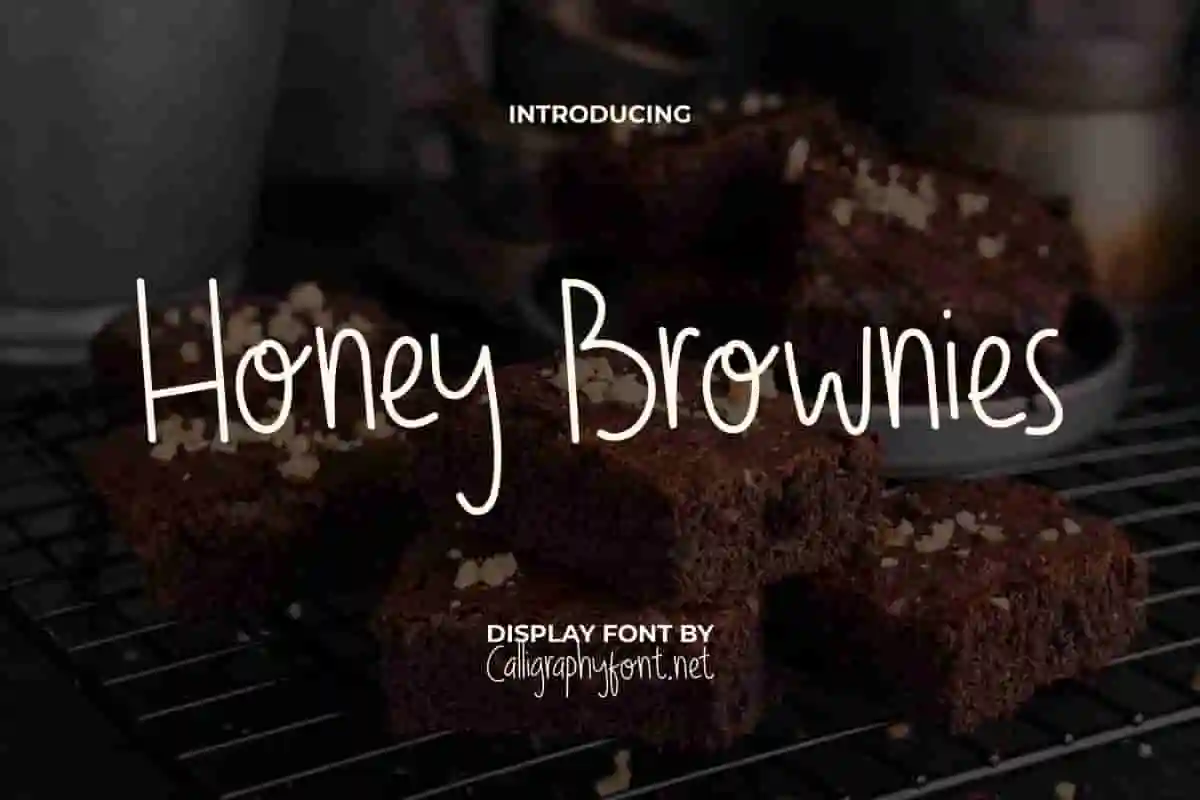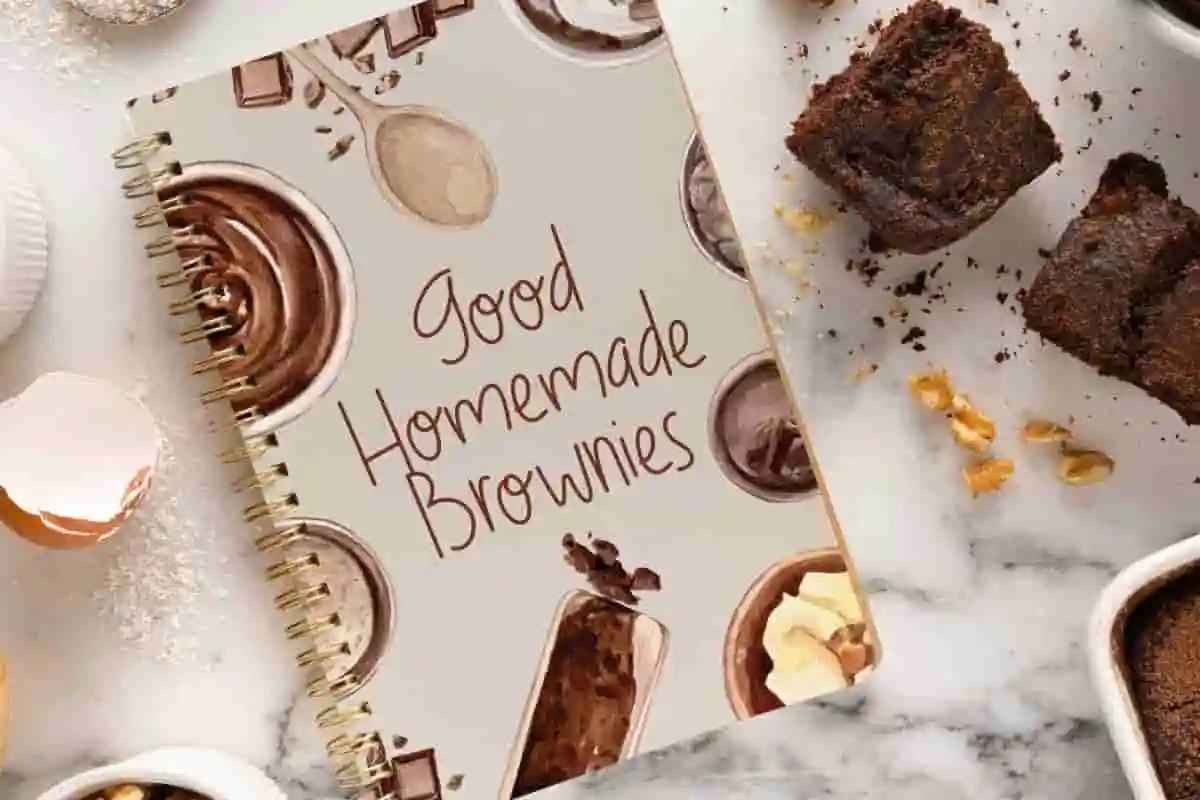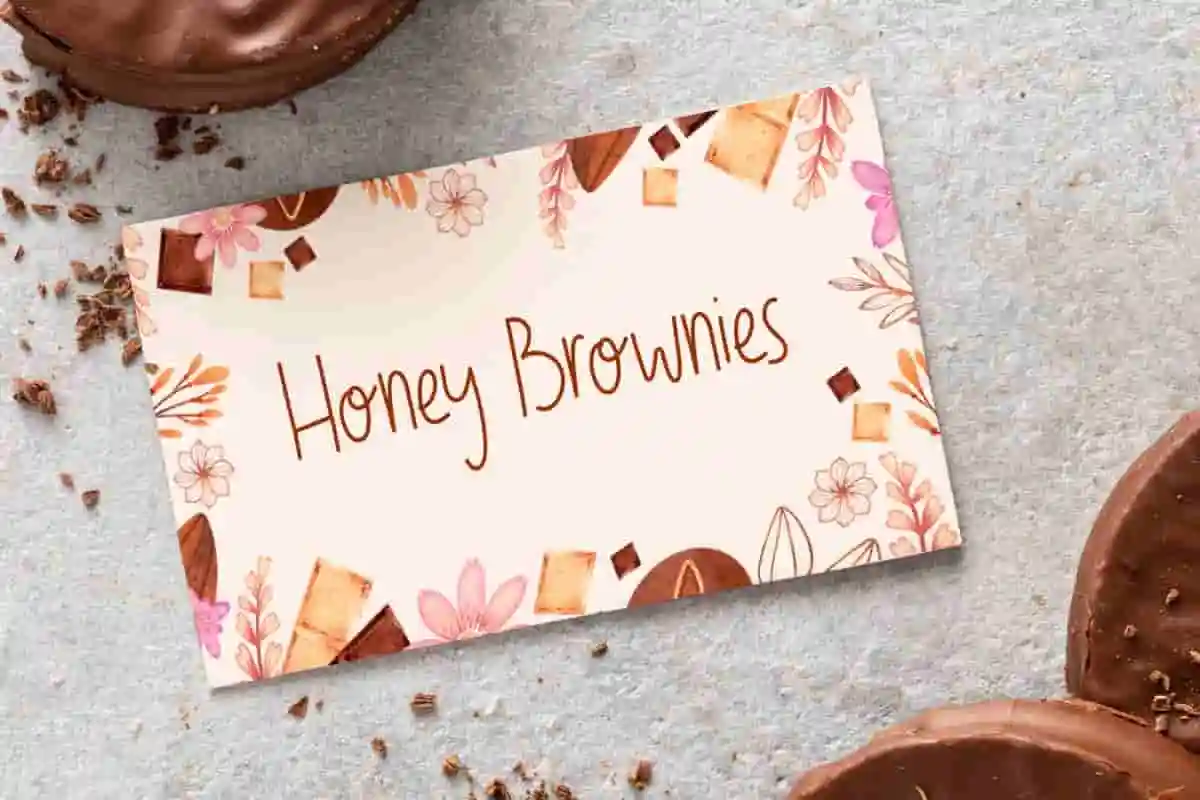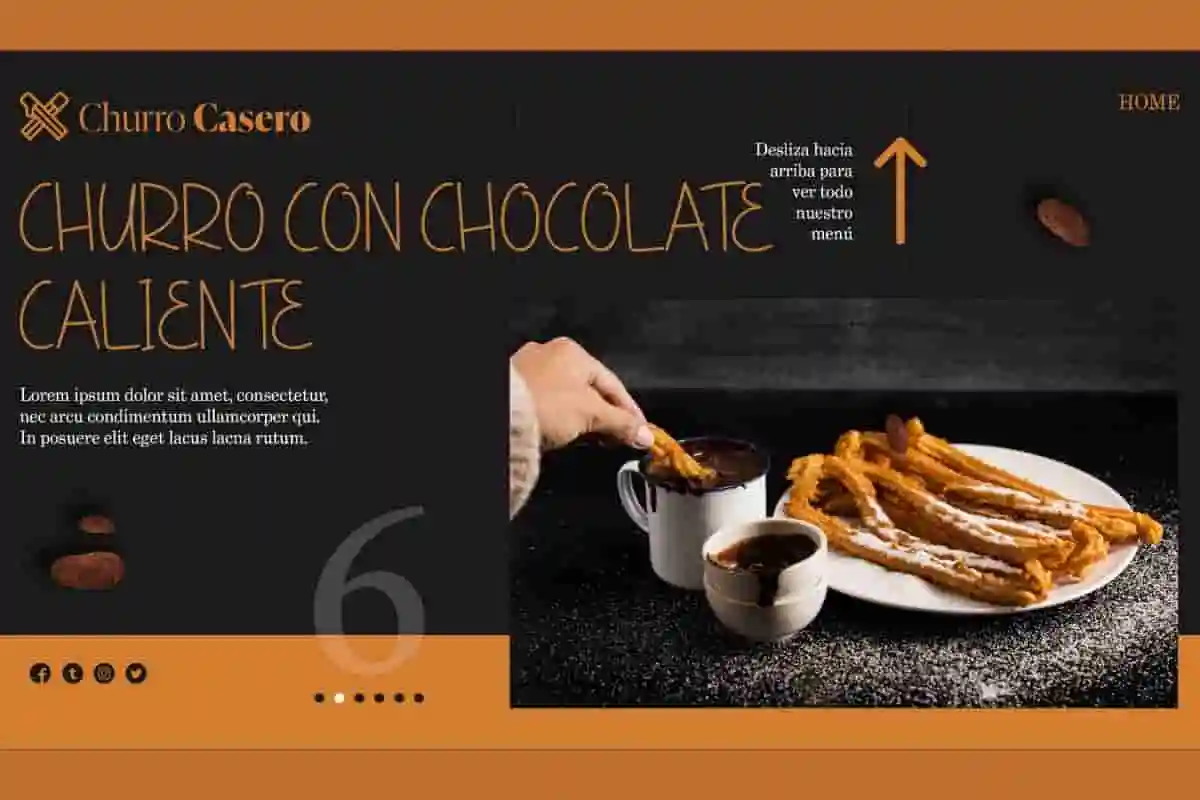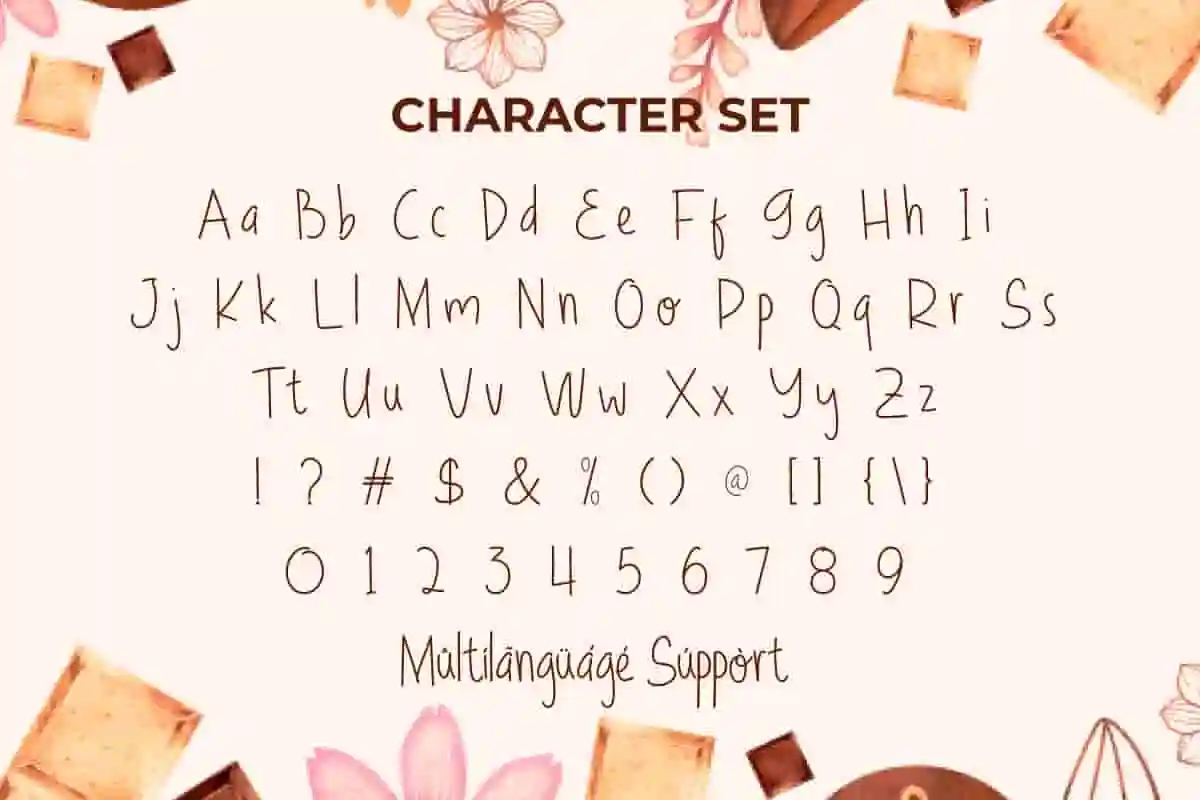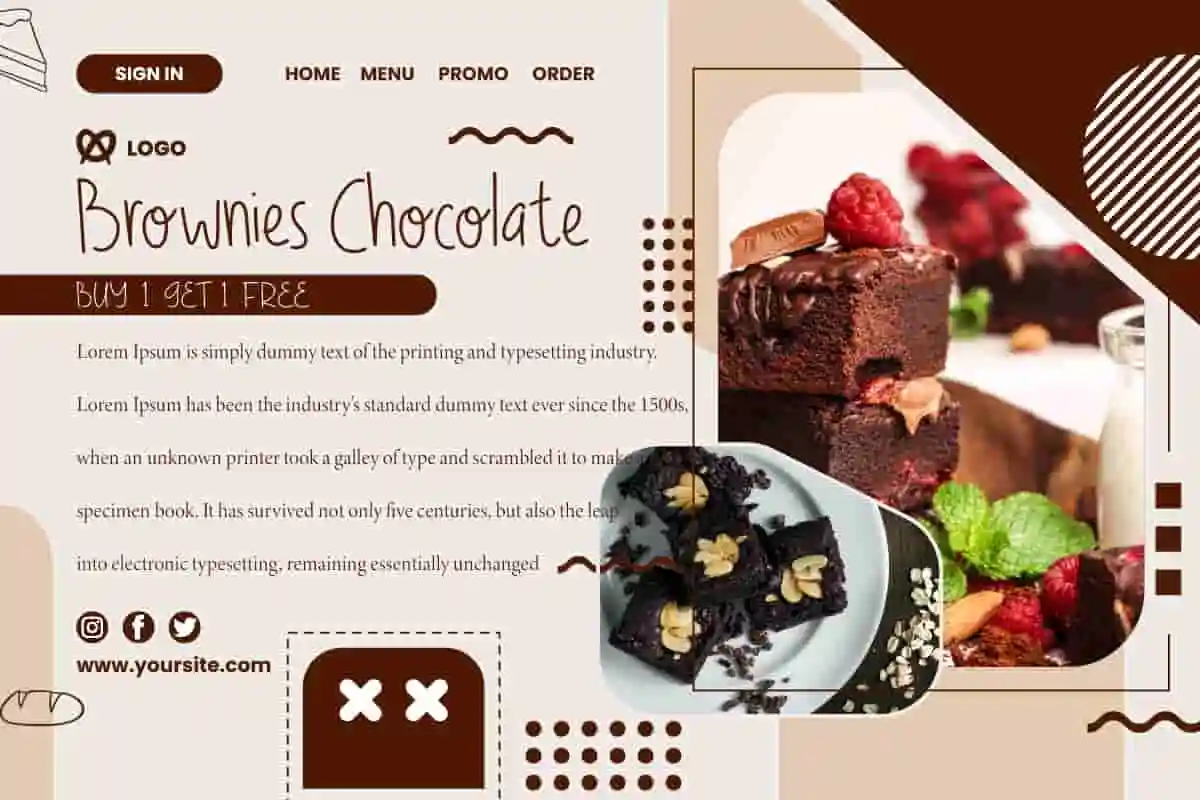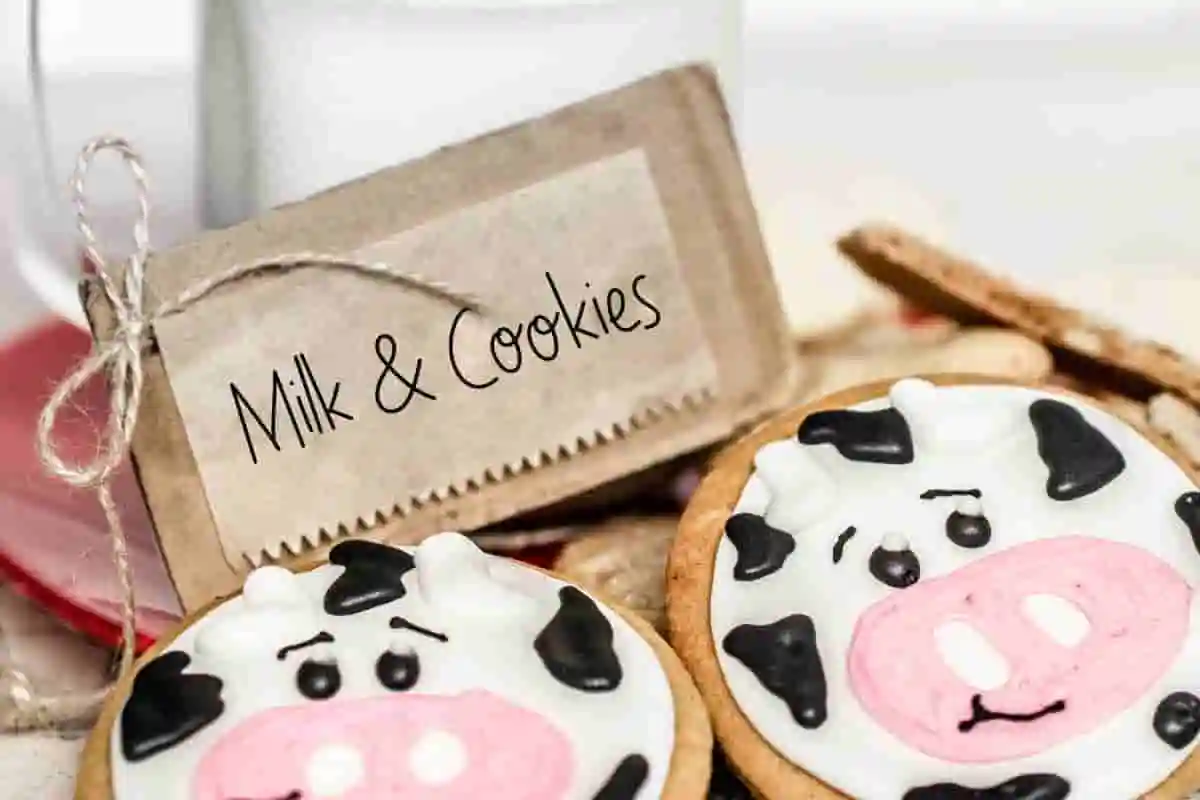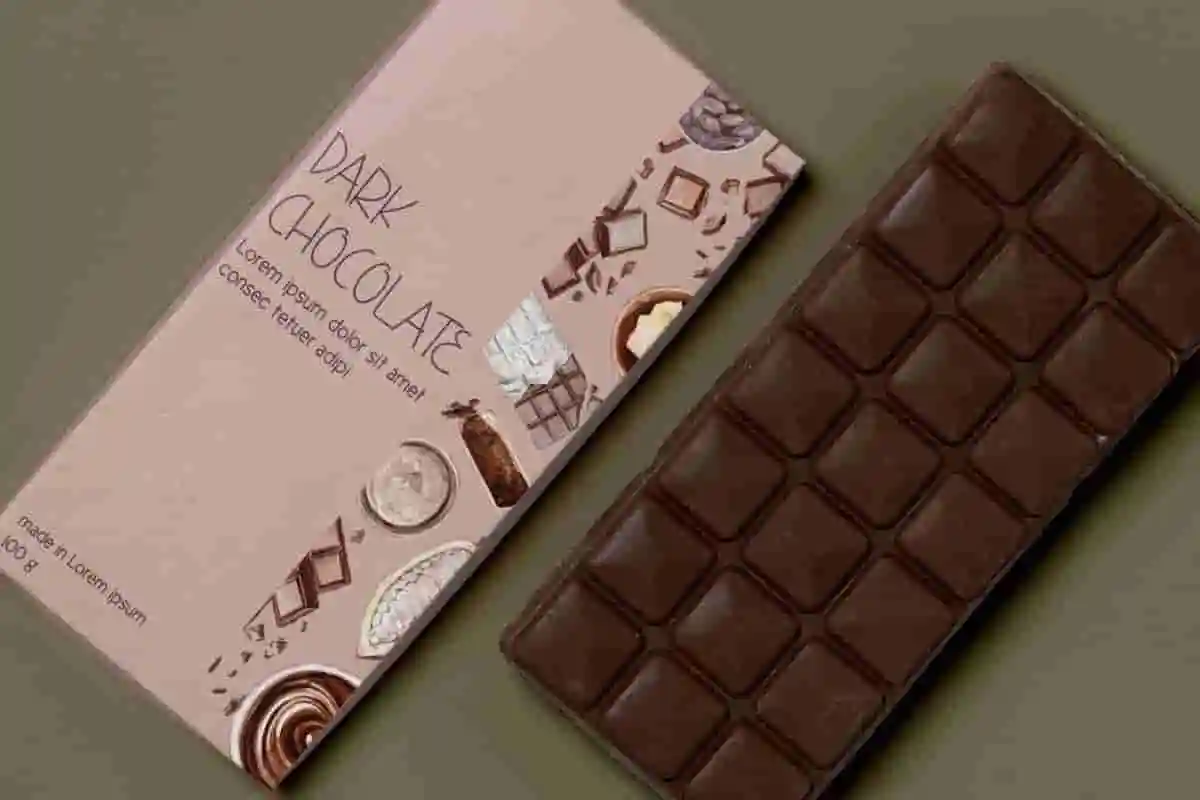
Honey Brownies Display Font
Honey Brownies Font is an attractive and realistic handwriting pencil font. It will work well for advertising, branding, print purposes and anything else that requires a style of casual writing.
Honey Brownies Font is a sweet display font handcrafted that looks like using a fine pencil that is simple and impressive. It exudes authenticity and warm personal expression. Perfect for everything from banner, blog, brochure, cards, cover, flyer, header, invitation, label, logos, menu, product packaging, quotes, stationery, stickers, title, watermarks, website and much more.
Say hello to Honey Brownies Display Font, a deliciously sweet and playful typeface that brings warmth and charm to every design. Inspired by homemade treats and cozy cafés, this font is perfect for projects that need a friendly, inviting touch. With its rounded shapes, smooth curves, and hand-lettered vibe, Honey Brownies is ideal for bakery branding, food packaging, menu design, product labels, logos, and social media graphics.
Introducing Honey Brownies Display Font, a cheerful, handcrafted typeface designed to bring warmth and personality to your creative work. With its rounded edges and bouncy letterforms, this font is full of flavor — just like a fresh batch of homemade brownies. Perfect for bakeries, food packaging, café menus, handmade product labels, logos, invitations, and Instagram graphics, Honey Brownies adds a sweet and welcoming vibe to any design.
Looking for a font that’s cute, fun, and full of flavor? Meet Honey Brownies Display Font, a delightful typeface that’s as charming as a warm homemade dessert. With bubbly curves and playful energy, it’s the perfect ingredient to sweeten your next creative project. Whether you’re crafting bakery packaging, children’s book titles, handmade product labels, café menus, or social media content, Honey Brownies brings a smile to every word.
- Cute & Cozy Design
- Perfect for Food & Lifestyle Brands
Honey Brownies Font is perfect for your creative ideas, both formal and informal. It has a modern style with a light impression because the font characters are made thin to create different creative ideas. This will be suitable for application anywhere such as accessories or souvenirs shop, bakeries, chocolate manufacturer, custom cake business, graphic design, handicrafts, hotel or lodging, pastries, photography, restaurants, sweets courses, etc.
Honey Brownies Font comes with a complete set of Uppercase and Lowercase Basic Characters, Number, a large range of Punctuation, and Symbol. It is supported with multilingual characters and ready to use both on Windows machine or Mac with simple installations. It’s tested to work well in the Adobe Apps (Illustrator, Adobe InDesign, Adobe Photoshop) CorelDraw, and others. PUA Encode Characters means you can access all the characters easily – Fully accessible without additional design software.